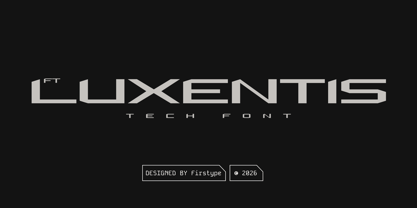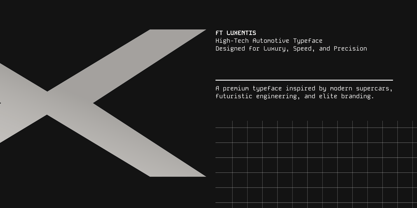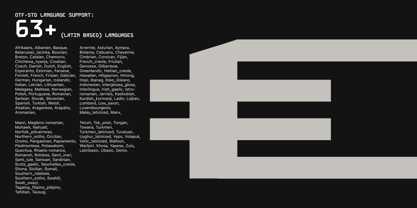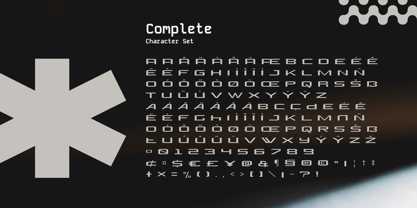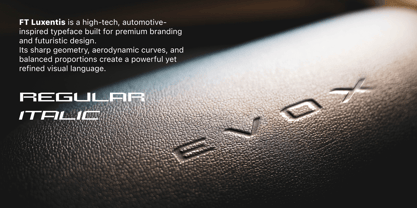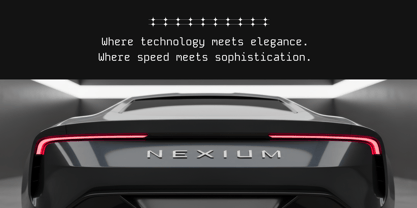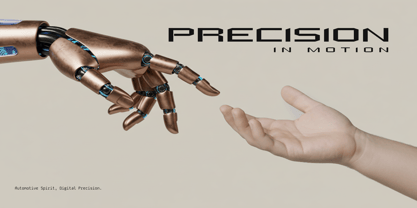
FT Luxentis
by Firstype Studio
The FT Luxentis Font Family was designed by Adrian Syauqi and published by Firstype Studio. FT Luxentis contains 2 styles and family package options. More about this family
FT LUXENTIS is a premium high-tech typeface inspired by the realms of luxury automotive design, futuristic engineering, and modern technology. Tailored for brands that demand power, precision, and elegance, Luxentis delivers a bold visual identity that exudes speed, exclusivity, and sophistication. This typeface features sharp geometry, aerodynamic forms, and balanced proportions that embody the essence of supercars, electric vehicles, and cutting-edge innovation. Each character is meticulously crafted to convey both strength and refinement, making Luxentis an ideal choice for premium branding, automotive identities, high-end technology products, and futuristic visual systems. FT LUXENTIS transcends being just a font; it is a declaration of luxury and performance. It resonates with brands that are forward-thinking, embrace innovation, and strive to lead their industries. Designed with clarity and versatility, Luxentis excels in both large display sizes and refined branding applications. From striking logotypes to digital interfaces, it maintains a commanding presence while ensuring readability and elegance. Perfect for: - Luxury automotive branding - Electric vehicles & future mobility projects - High-end technology brands - Premium product packaging - Futuristic UI / UX & HUD designs - Sports cars, racing identities, and motorsport visuals - Luxury watches, gadgets, and elite lifestyle branding
Designers: Adrian Syauqi
Foundry: Firstype Studio